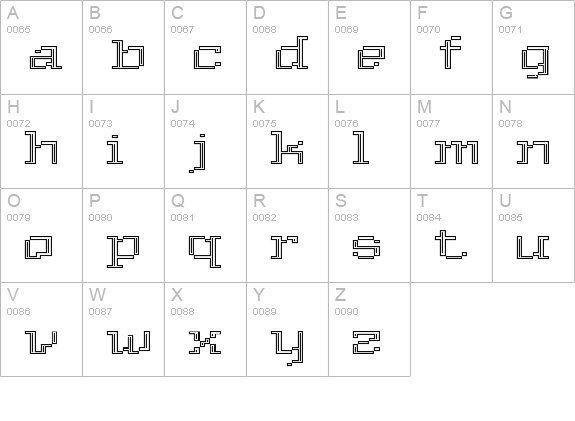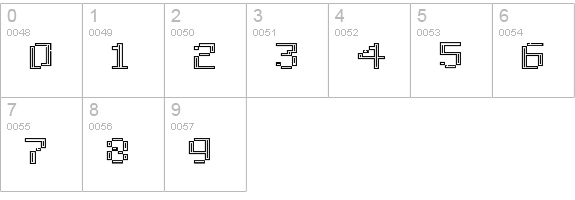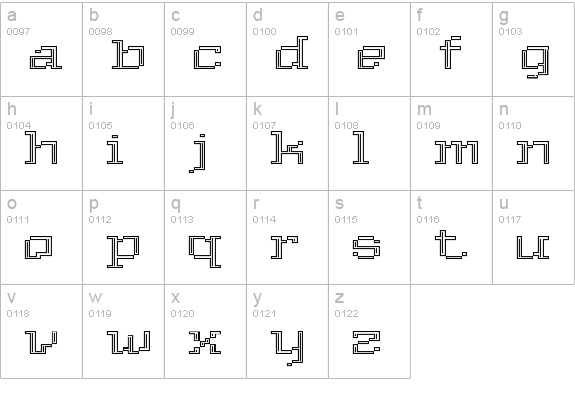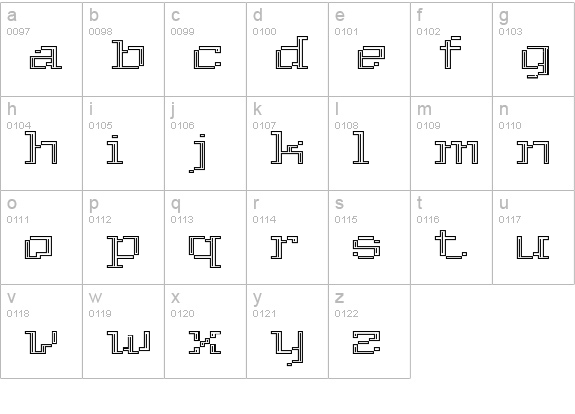
Deko font is a modern and stylish typeface that exudes a sense of sophistication and elegance. With its clean lines and sleek design, Deko font is perfect for a wide range of design projects, from branding to editorial layouts. This versatile font is sure to make your text stand out and capture the attention of your audience. The best part about Deko font is that it is completely free to download at FontsMarket.com. Whether you're a professional designer or a hobbyist looking to add a touch of class to your projects, Deko font is the perfect choice. Don't miss out on this amazing opportunity to enhance your designs with this beautiful and elegant typeface. Download Deko font today and take your creations to the next level!